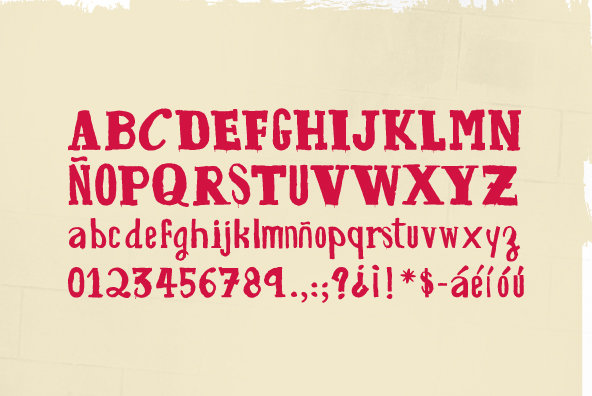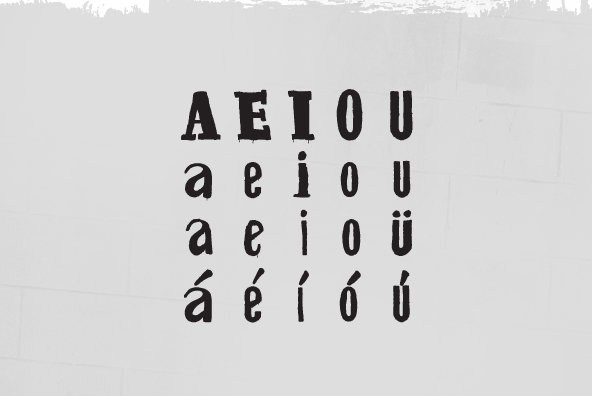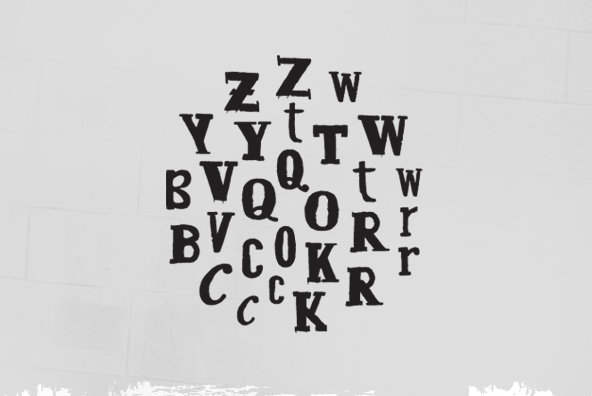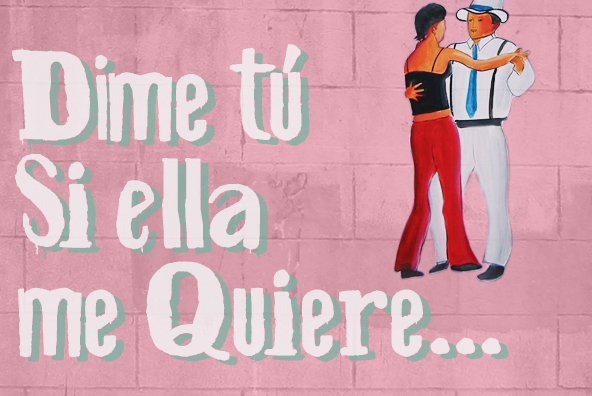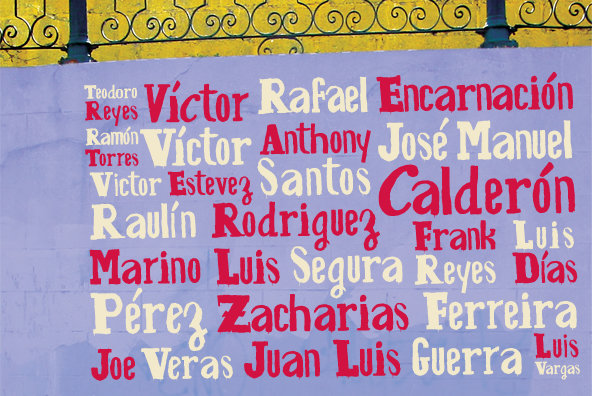
Bachata
Bachata is a font for the misspelled words. A font with no ego or complex of any kind, it celebrates its inconsistencies in shapes and changes in stroke. It has a rhythm and texture, where each letter is born from the same place that the nostalgia of every song of Bachata comes from. Designed with pride in the Dominican Republic by Modafoca. One weight available, made of 120 characters for your enjoyment in the latest OTF and TT formats. The image above reads, "You tell me if she loves me"... from " Llanto a la Luna by J.M. Calderón. First Bachata song ever recorded.